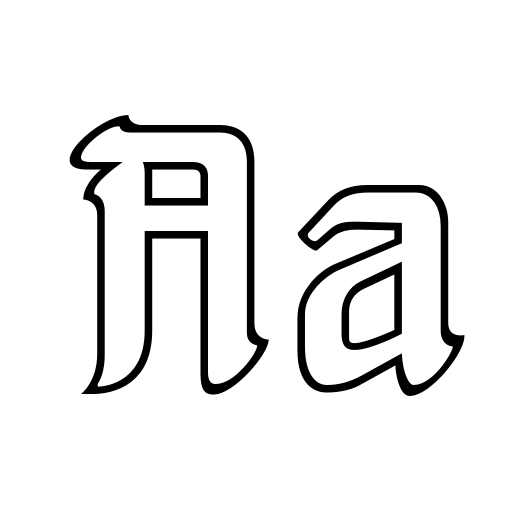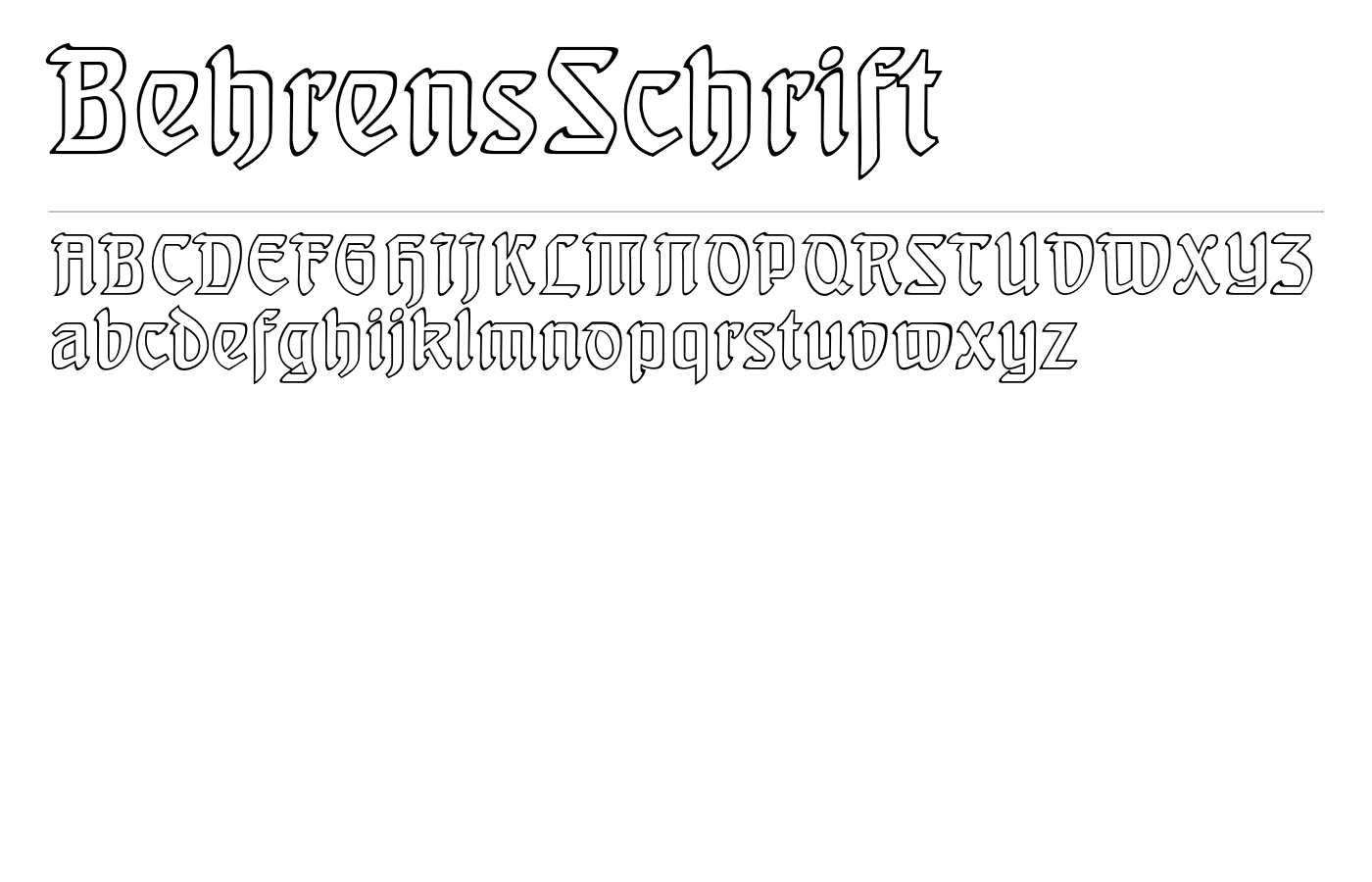
BehrensSchrift is a distinctive blackletter serif font characterized by its sharp, angular strokes and high contrast between thick and thin lines. Its narrow, tall letterforms with intricate details evoke a historic, Gothic feel, making it ideal for projects seeking a traditional or medieval aesthetic, such as logos, headlines, or themed branding that demands a strong, dramatic presence. This font works best in display settings where its ornate design can be fully appreciated.
BehrensSchrift Font
About BehrensSchrift Font
| Designer | Peter Behrens, Ingo Zimmermann |